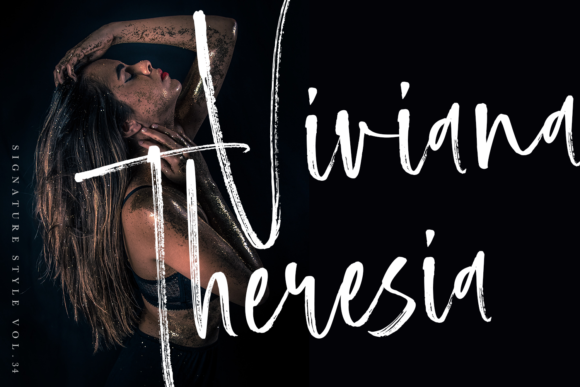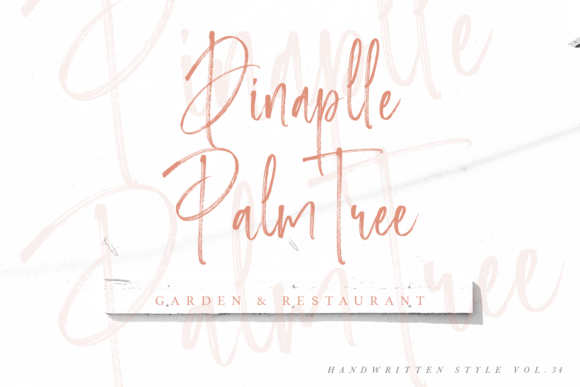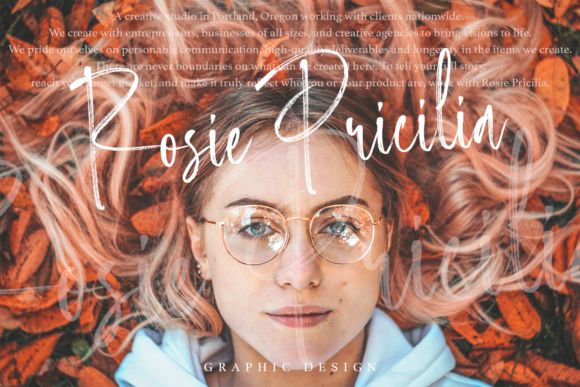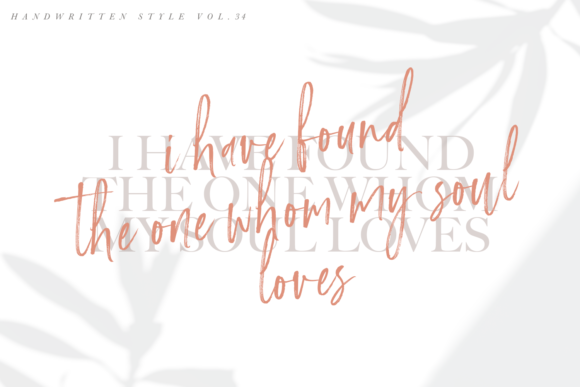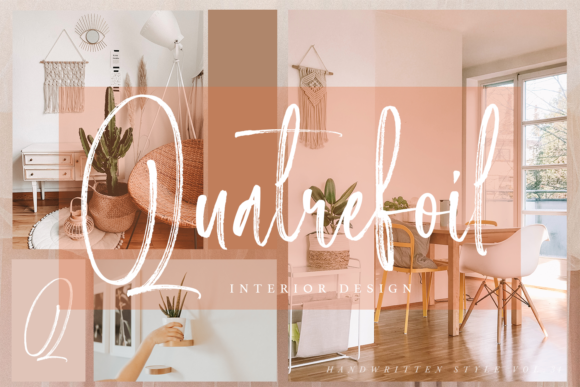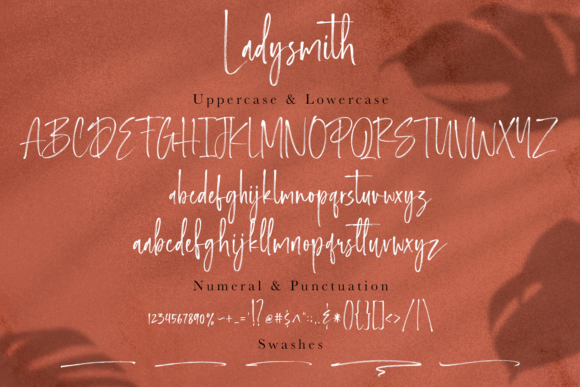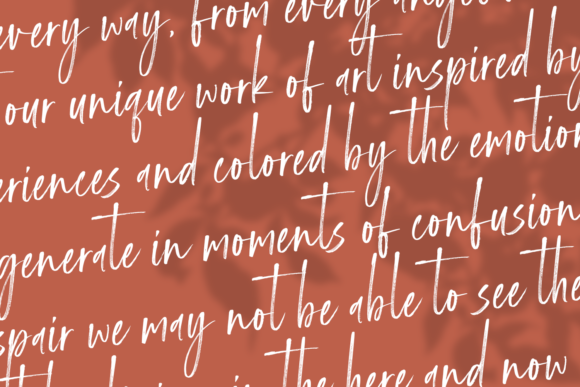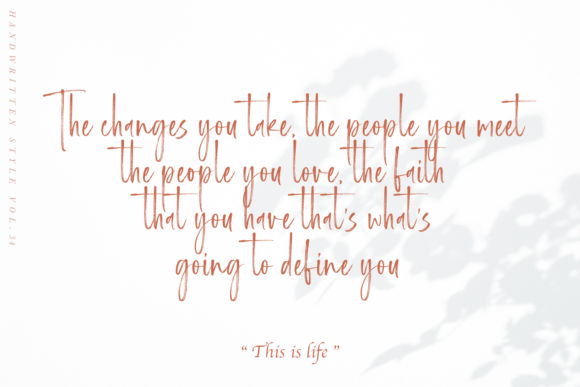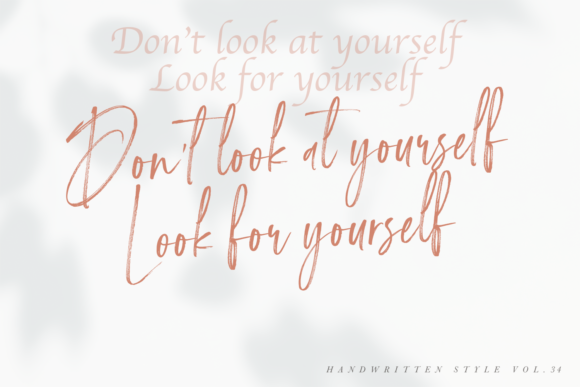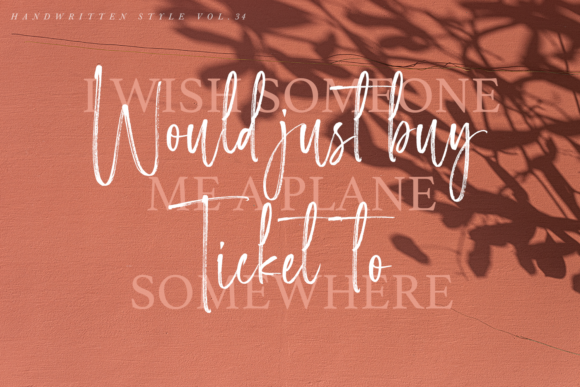
Ladysmith Font
Ladysmith is a relaxed and flowing handwritten font. Fall in love with its distinct and timeless style and use it to upgrade your lovely creations!